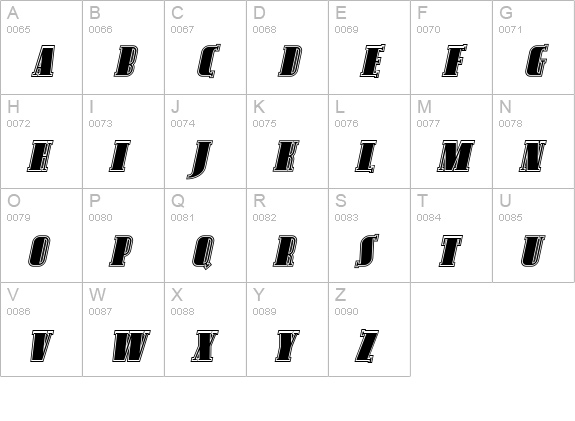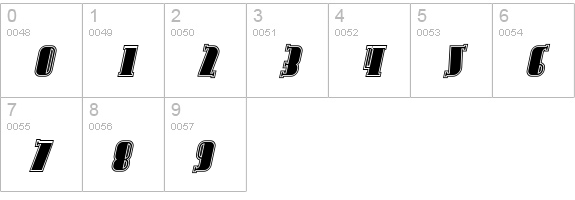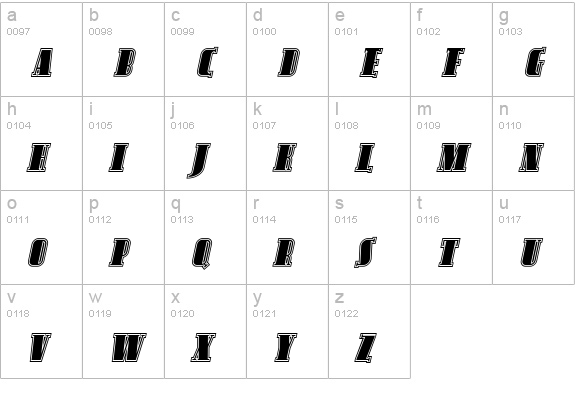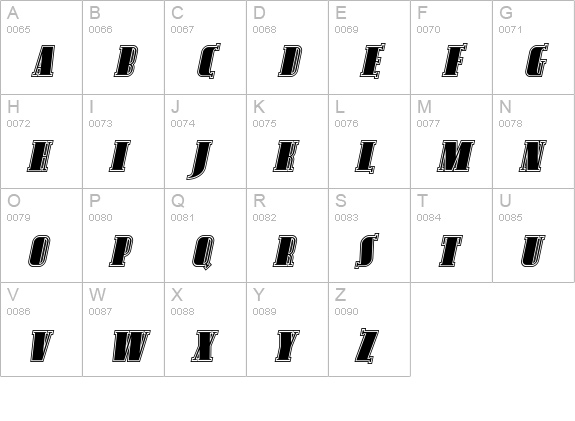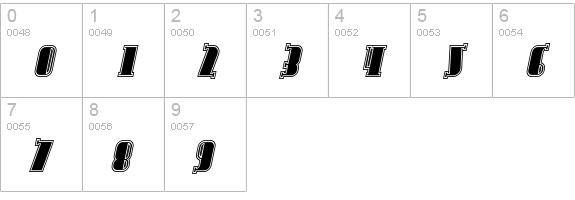
Avondale SC Inline Italic is a distinctive, italic variant in the Avondale typeface family \xE2\x80\x94 well suited to design and typography projects.
Avondale SC Inline Italic font is a stylish and modern typeface that combines elegance with a touch of sophistication. Its sleek and streamlined design makes it a perfect choice for projects that require a contemporary and edgy look. The italicized style adds a dynamic flair to the text, making it stand out and catch the eye. What's even better is that Avondale SC Inline Italic font is available for free download at FontsMarket.com. This means you can easily access and use this beautiful font in your design projects without any cost. Whether you're working on a website, branding materials, or any other creative project, Avondale SC Inline Italic font will add a unique and professional touch to your work. Don't miss out on the opportunity to enhance your designs with this fantastic font – download it for free today!